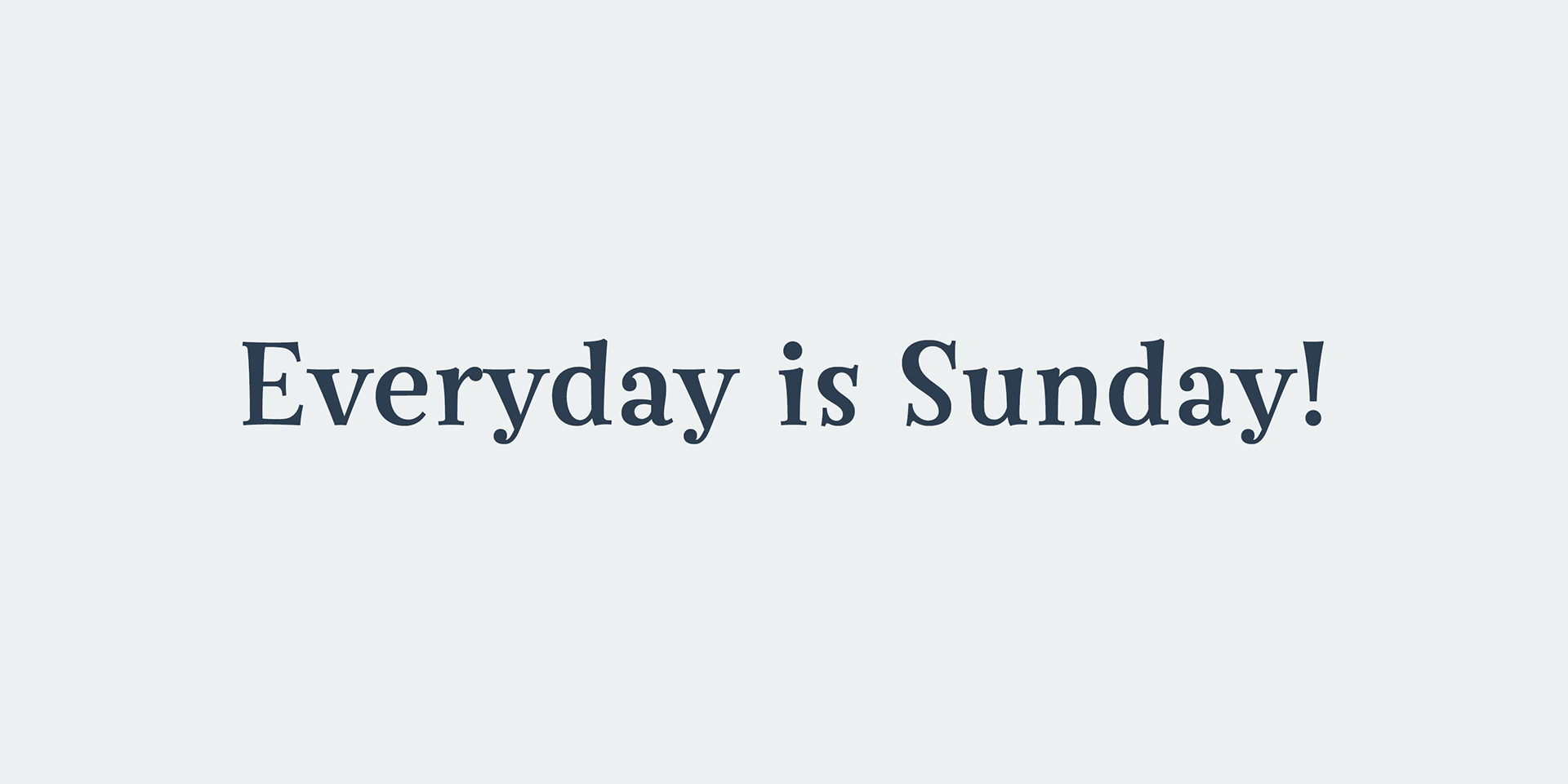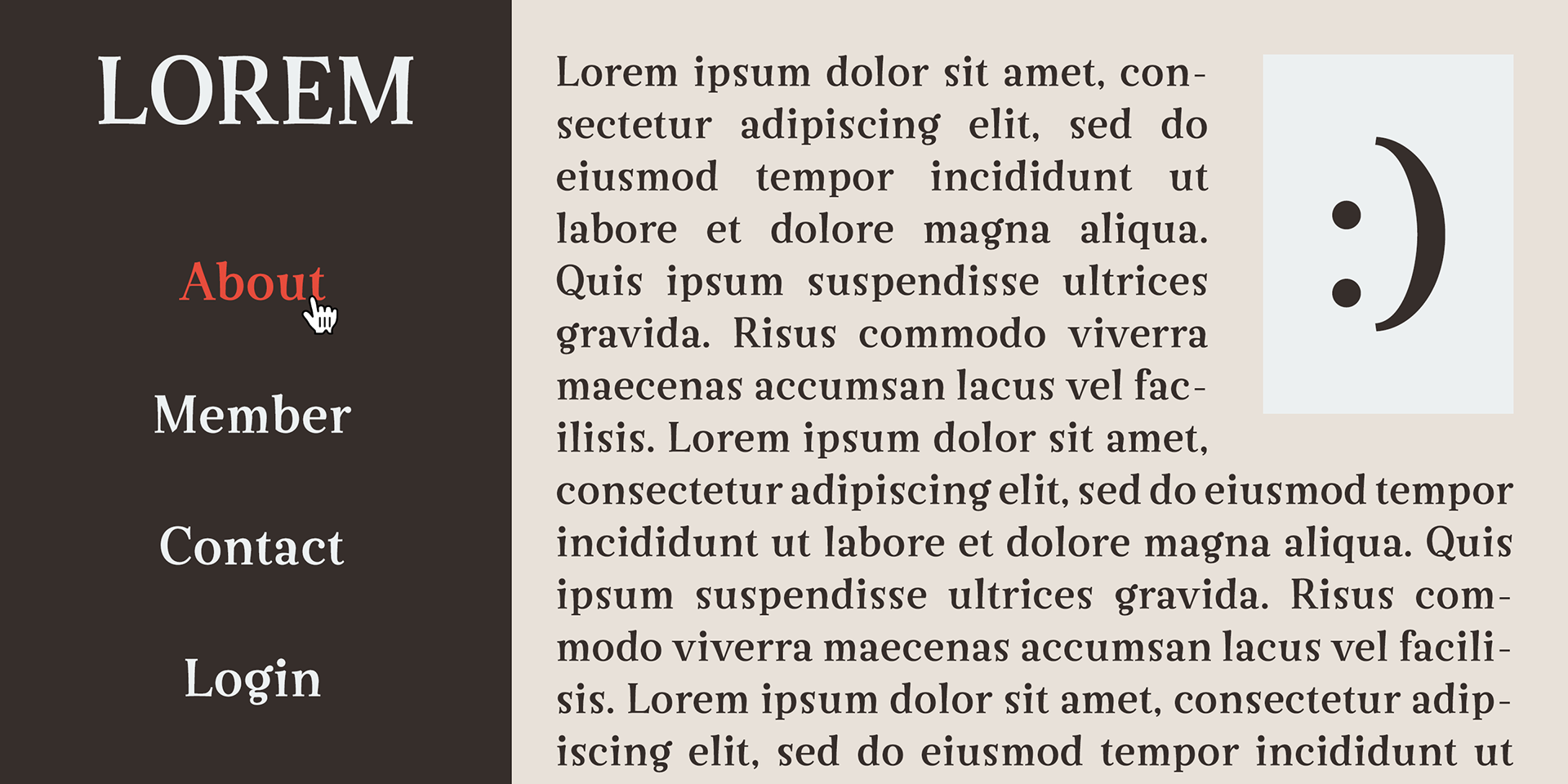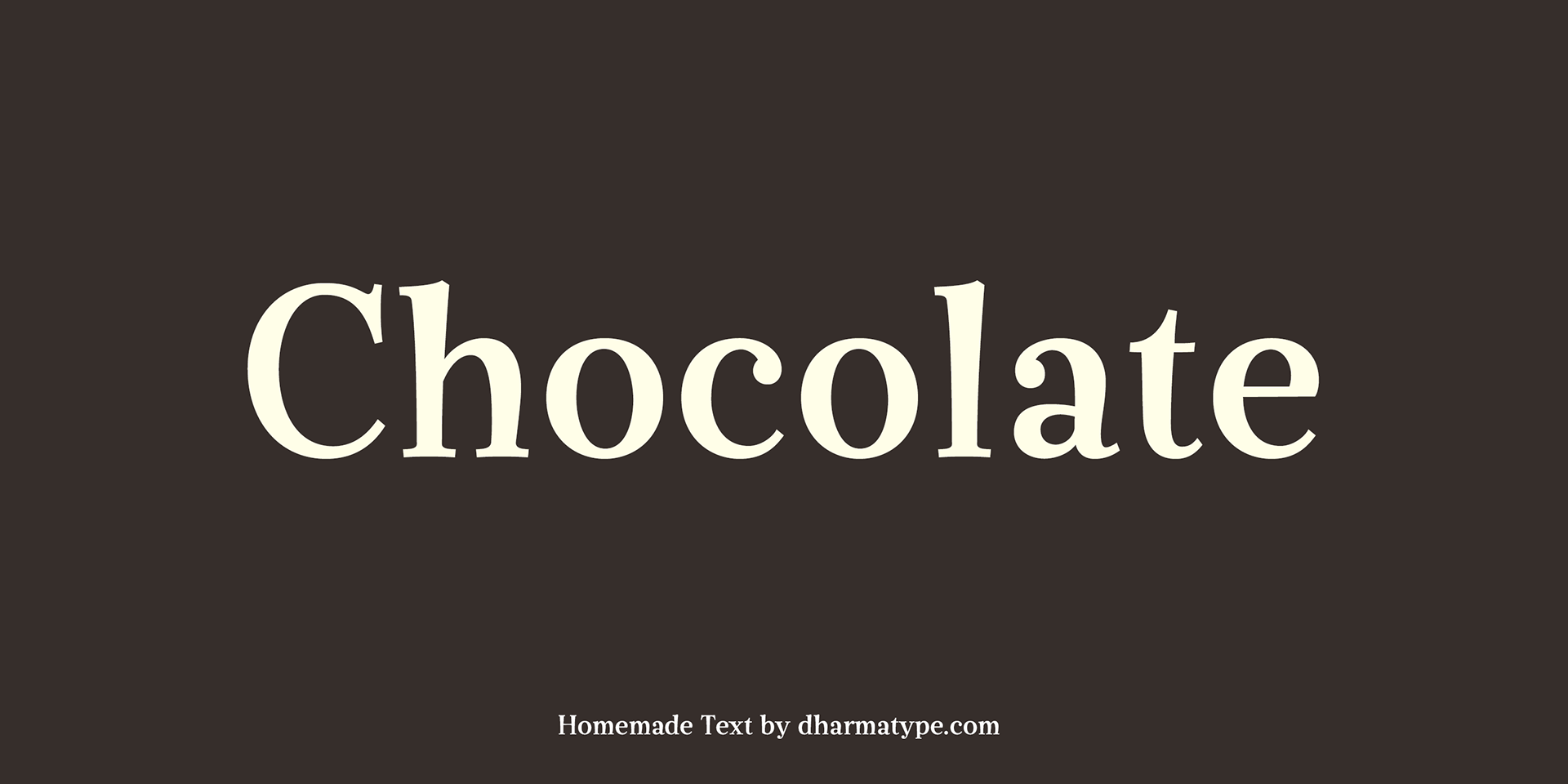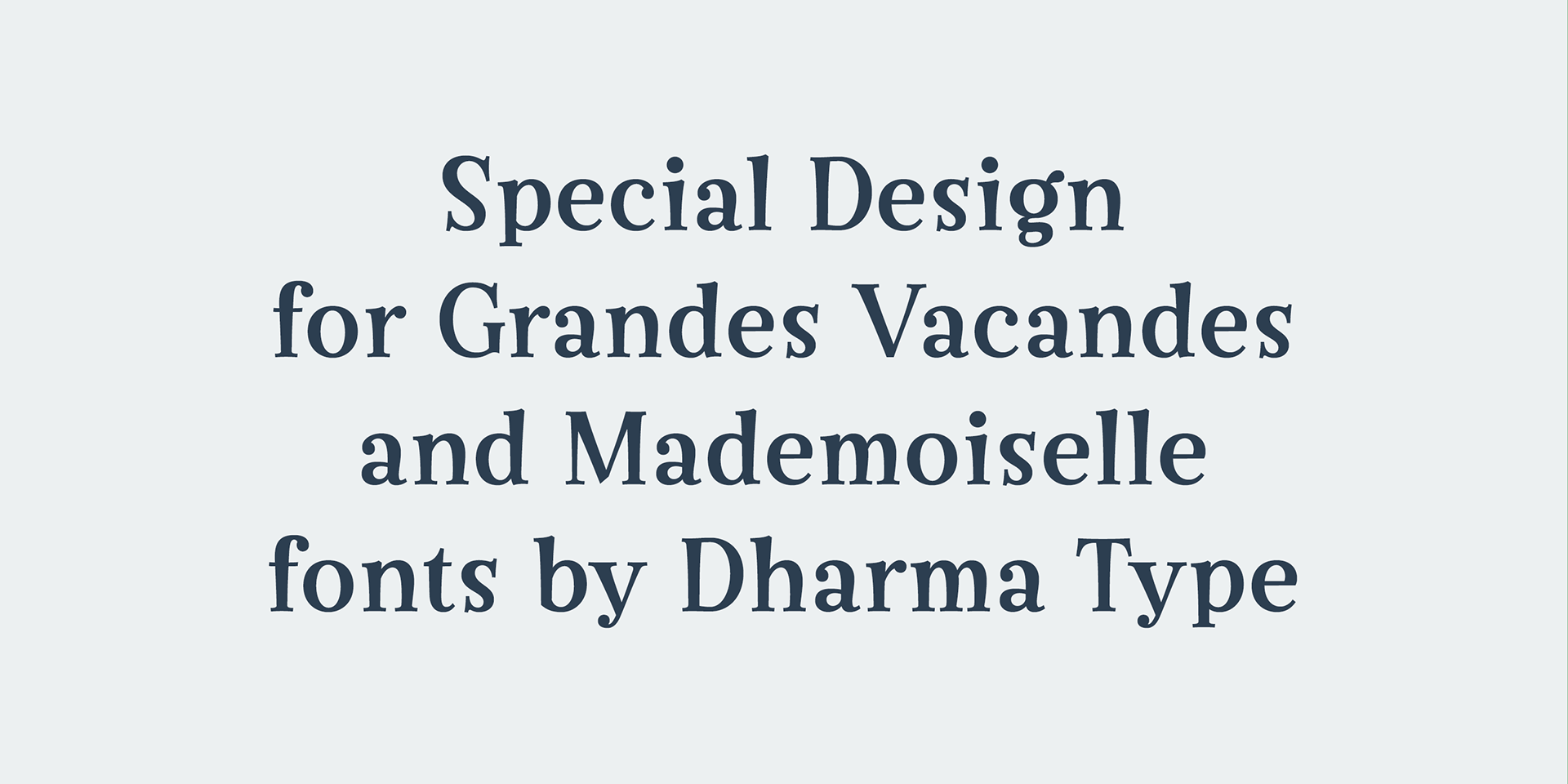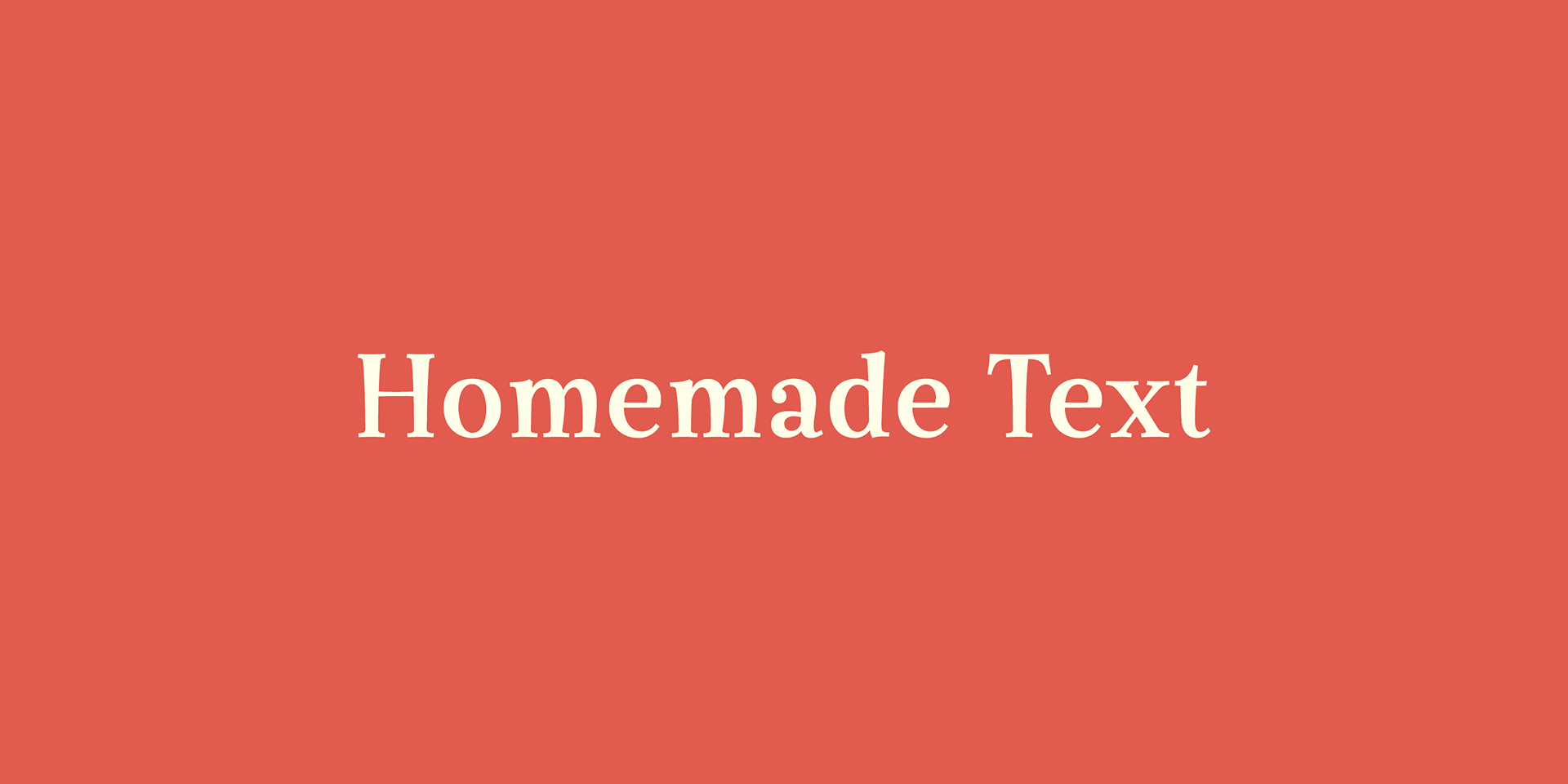
Homemade Text
Homemade Text was designed as a perfect companion to the Grandes Vacances and Mademoiselle typefaces.
It’s a delightfully sweet and highly legible text font, ideal for bringing a warm, handwritten feel to your designs.